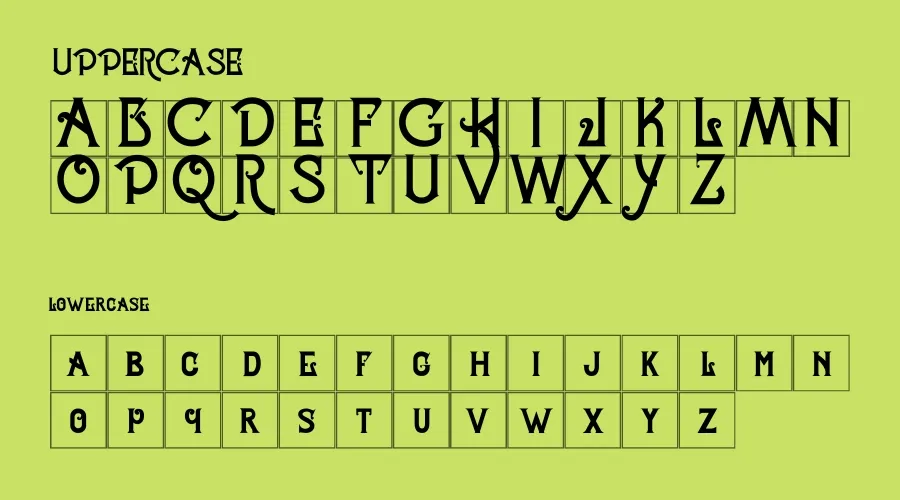
Celestial Font
About Celestial Font
The fortunes co is the designer of Celestial Font with a retro texture family. This typeface contains a different type of style and more than 148 Glyphs. It is an attraction in fancy retro texture that is available in a free version with both OTF and TTF file formats.
It includes different types of characters such as small letters, capital letters, integers, marks, and many other unique structures of the alphabet set. You can utilize this font with Madras Font and make new outstanding projects.
This font supports multiple international languages such as English, Greek, Greenlandic, Guarani, and Haitian Creole. The Font is known for its readability, simplicity, and versatility. It is also one of the most popular fonts used by graphic designers.
The Celestial Font has a stylish and professional texture, that is perfect for multiple types of tasks and methods. It is often used in publications and newspapers in both captions and headlines. It is particularly well suited for a fashion magazine where it can be used for eye-catchy headlines.
The style of this typeface also makes it ideal for more serious publications such as economic news outlets etc. The clarity of the glyphs makes it easy to read code on the screen. The font is also popular with designers and illustrators.
You can compare this font with Chisel Font and make a variety of projects. The Font has been used in many different types of projects, from websites to logos to print documents. It is a versatile font that can be used for adobe photoshop, canvas, Illustrator, and many more.
Style retro
What kind of font is Celestial Font?
The Celestial Font is an attractive retro texture that was designed by a famous typographic designer named fortunes co.